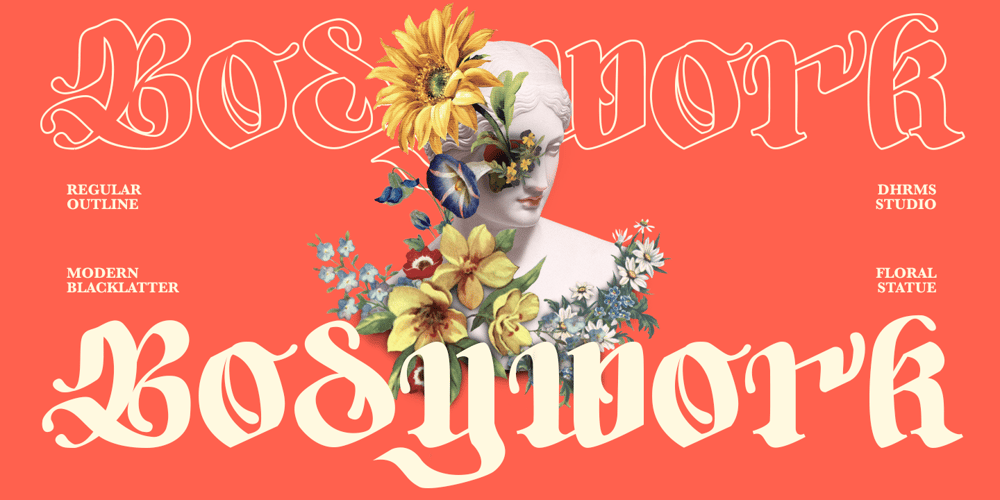
Bodywork Font Family was designed by Ahmad Jamaludin and published by Ahmad Jamaludin. Bodywork contains 2 styles and family package options. Say hello to Bodywork! A modern blackletter with groovy touch!Bodywork – A black letter font in a groovy modern style with flower petal-inspired curves and modern style. This font is equipped with several OpenType features such as Ligatures, Alternative Character / Stylistic Sets, and multi-language support.Bodywork – has 2 regular and outline styles that complement your design needs, and this font is designed to be able to combine with other fonts. This font is perfect for branding, logo design, cover design, books, magazines, apparel designs, headlines, etc.Features: Bodywork Regular and Outline Instructions ( Access special characters, even in Cricut Design ) Have many alternate and ligatures Unique letterforms Works on PC & Mac Simple Installations Accessible in Adobe Illustrator, Adobe Photoshop, Microsoft Word even work on Canva! PUA Encoded Characters Fully accessible without additional design software. Get ready to unleash your creativity with BODYWORK!Enjoy Designing!Dharmas Studio